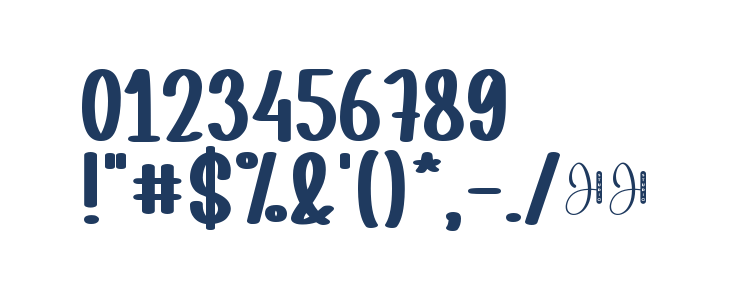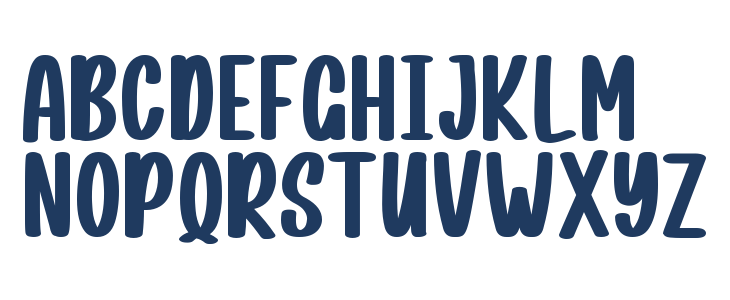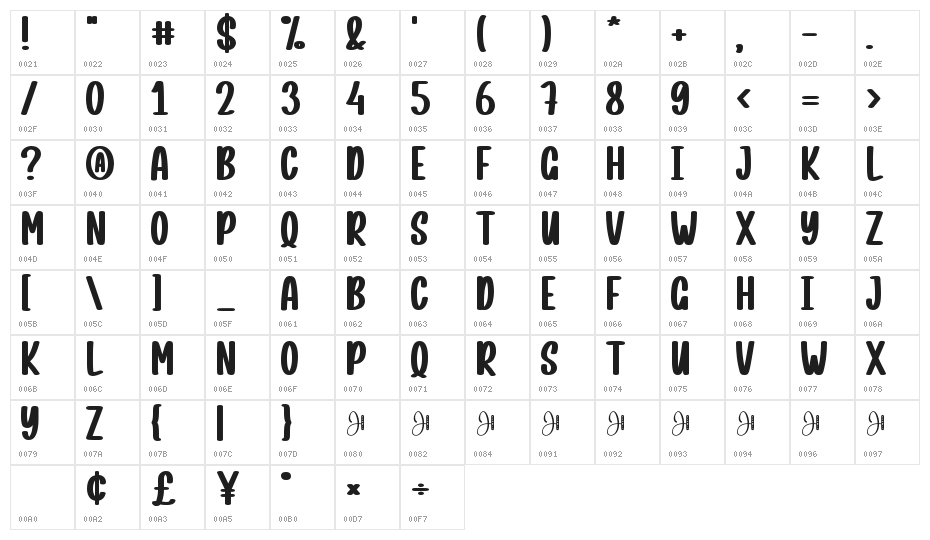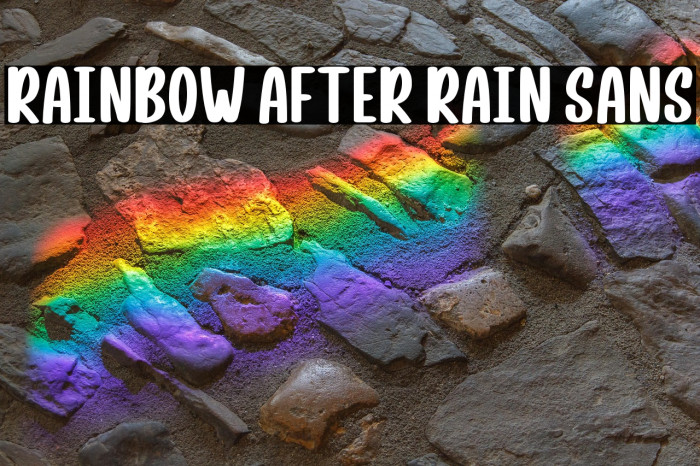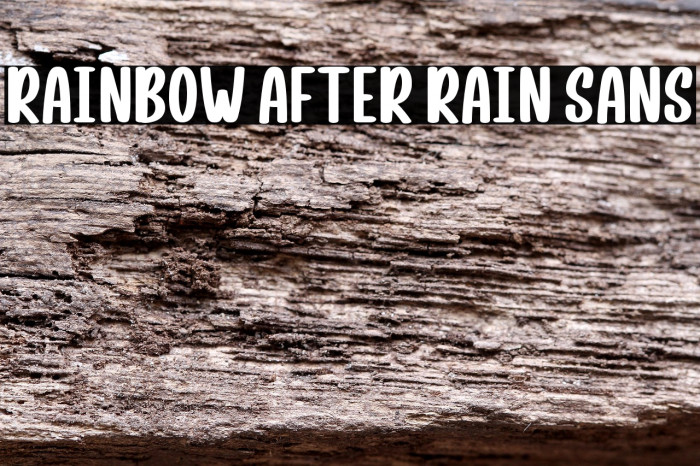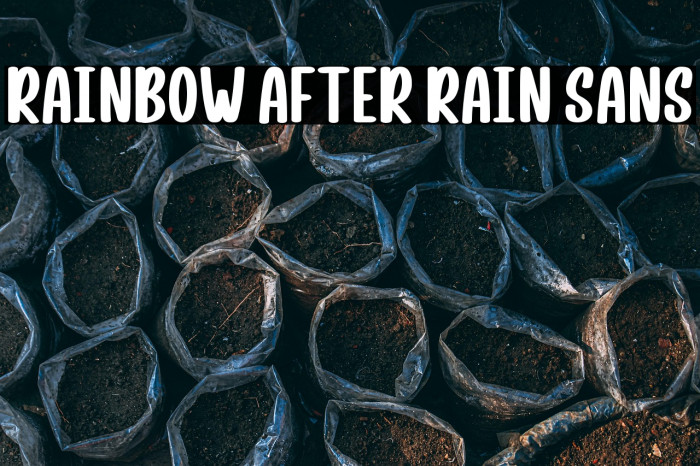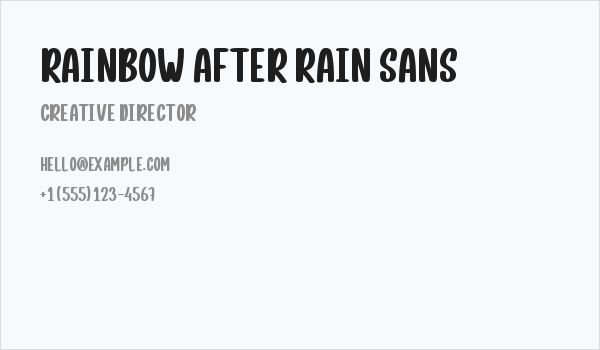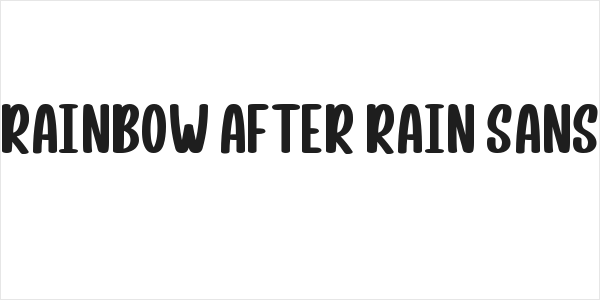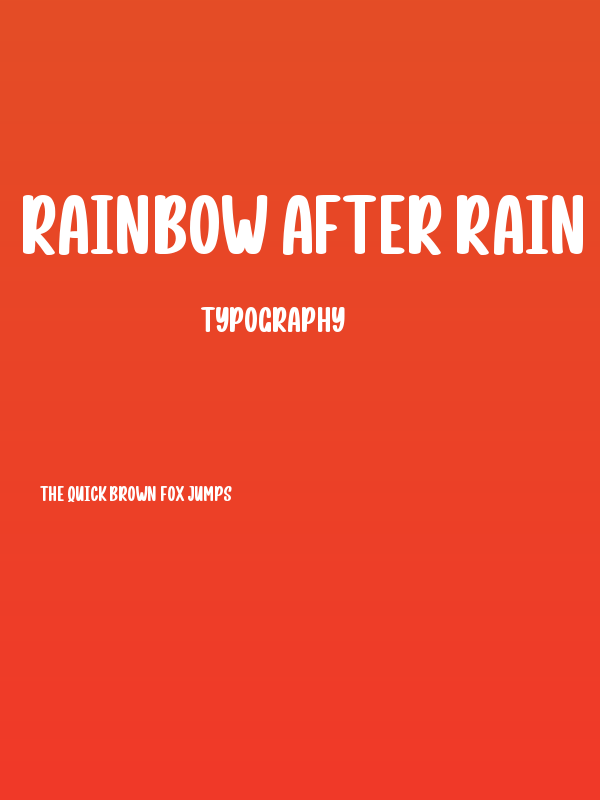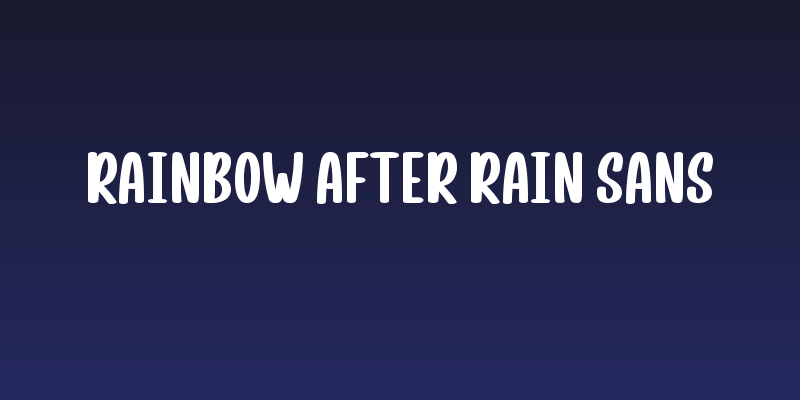
Rainbow After Rain Sans Font
Rainbow After Rain Sans Description
A playful, rounded sans-serif font with bold strokes, uniform width, and slightly irregular, hand-drawn letterforms. The characters have a friendly and approachable appearance, with consistent stroke thickness and minimal contrast.
| Overall Style | Playful, Decorative, Handwritten |
| Use Case | Headlines, Posters, Logos, Informal text |
| Proposed Projects | ChildrenΓ’β¬β’s books, posters, greeting cards, playful branding, social media graphics. |